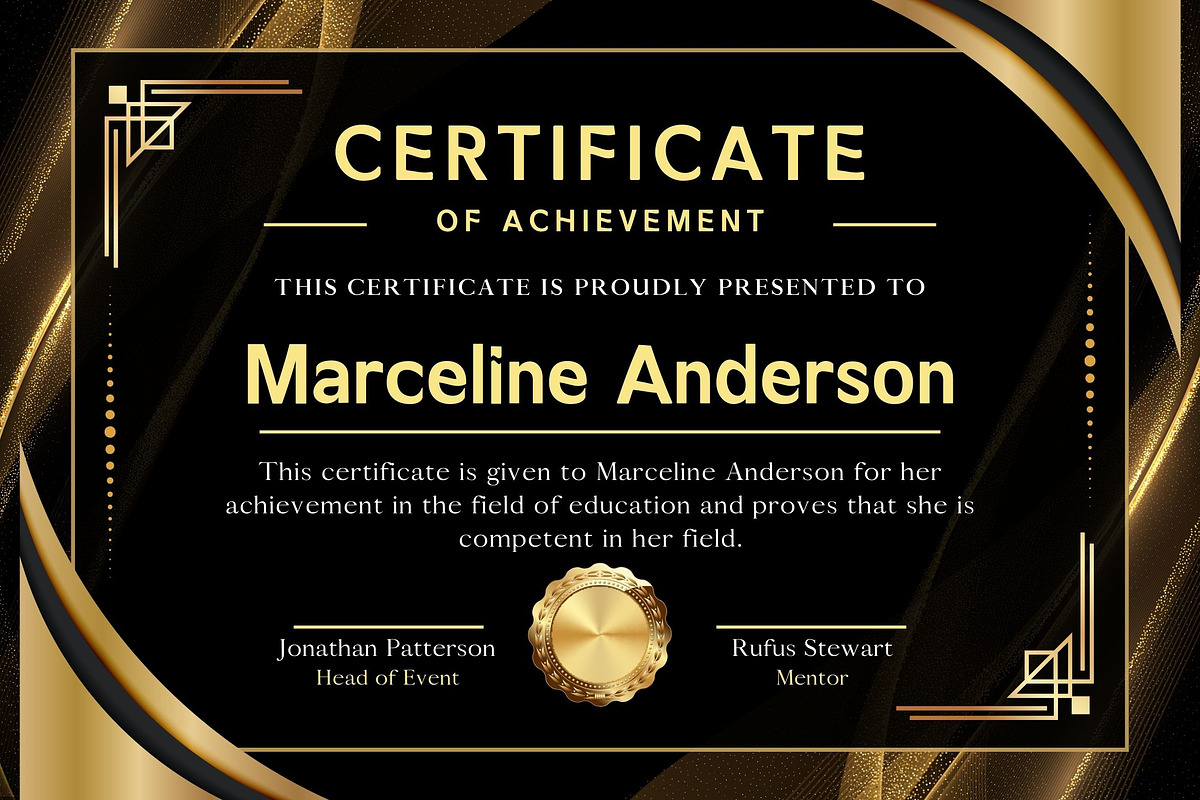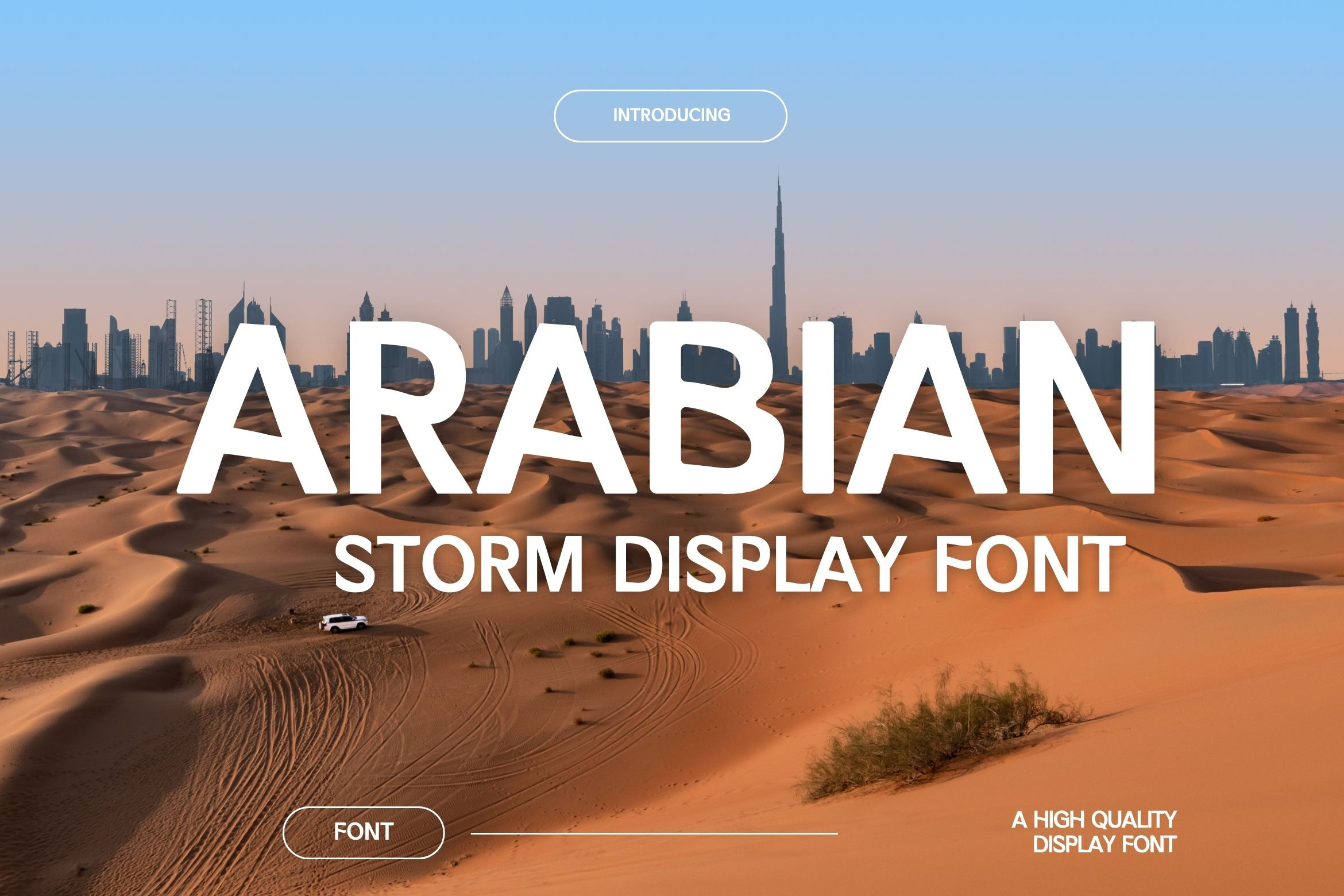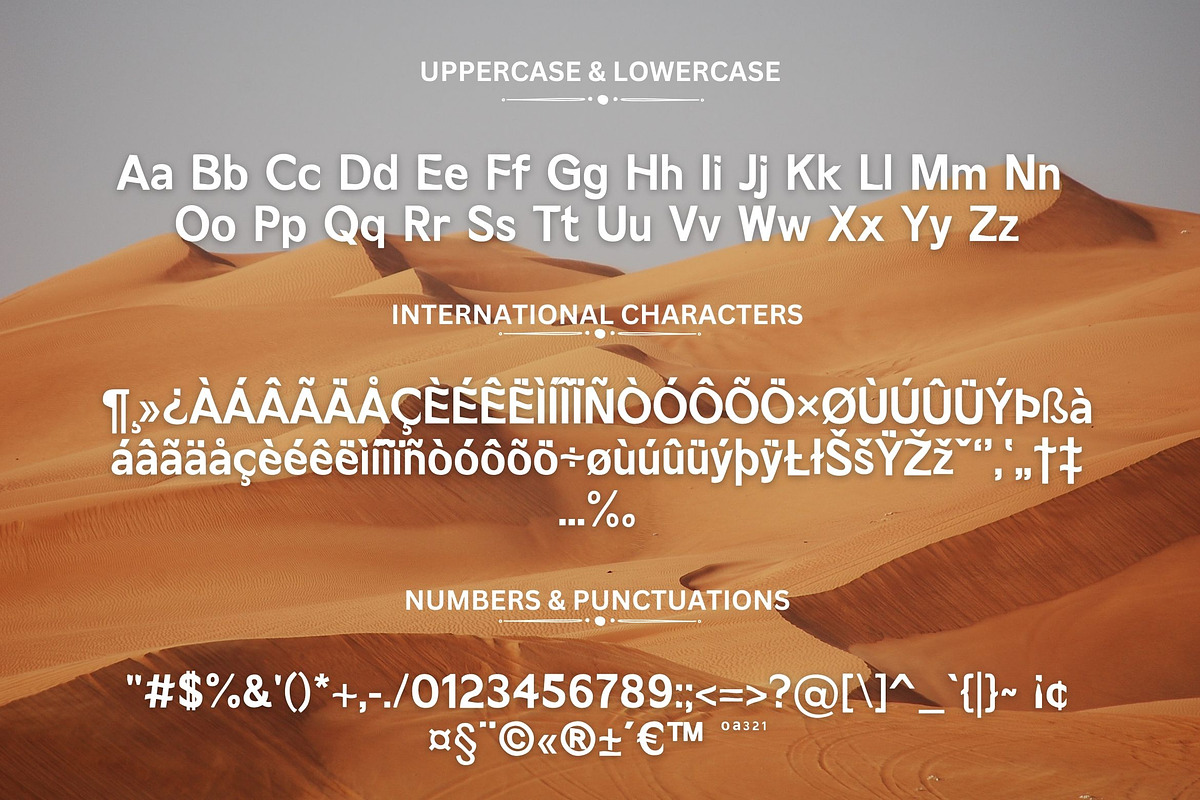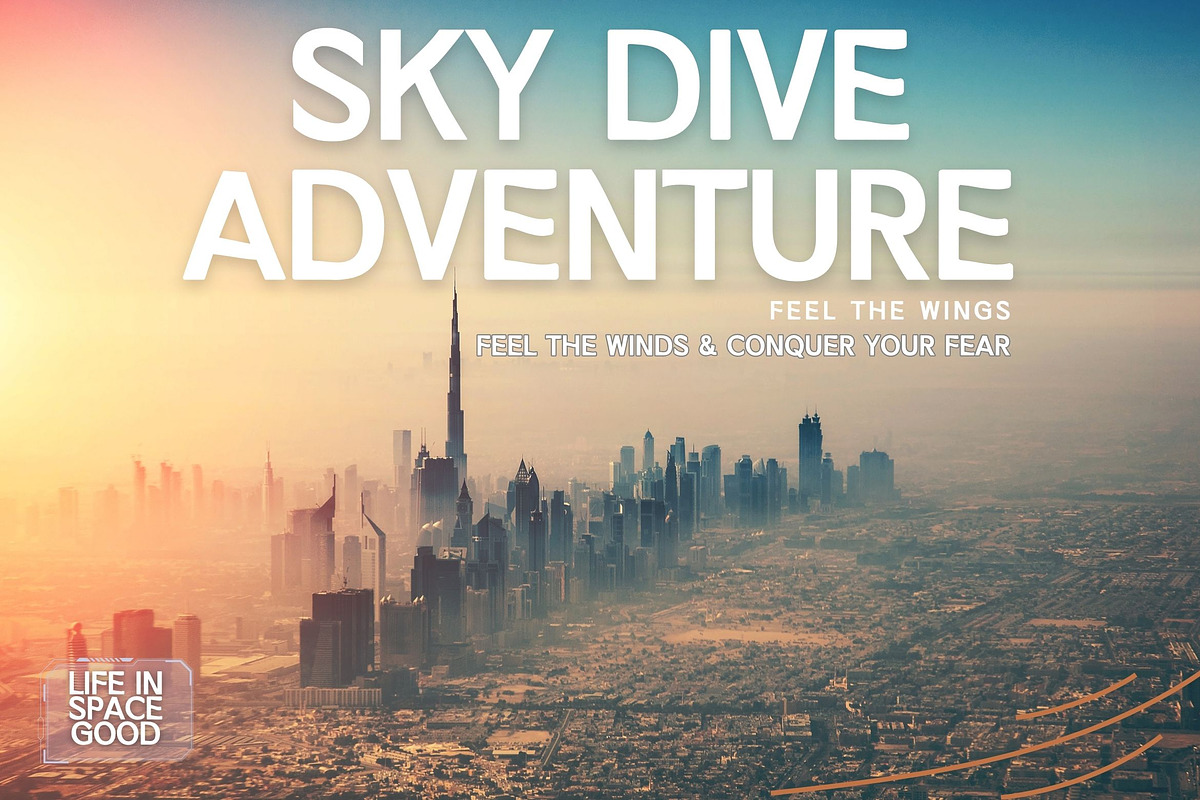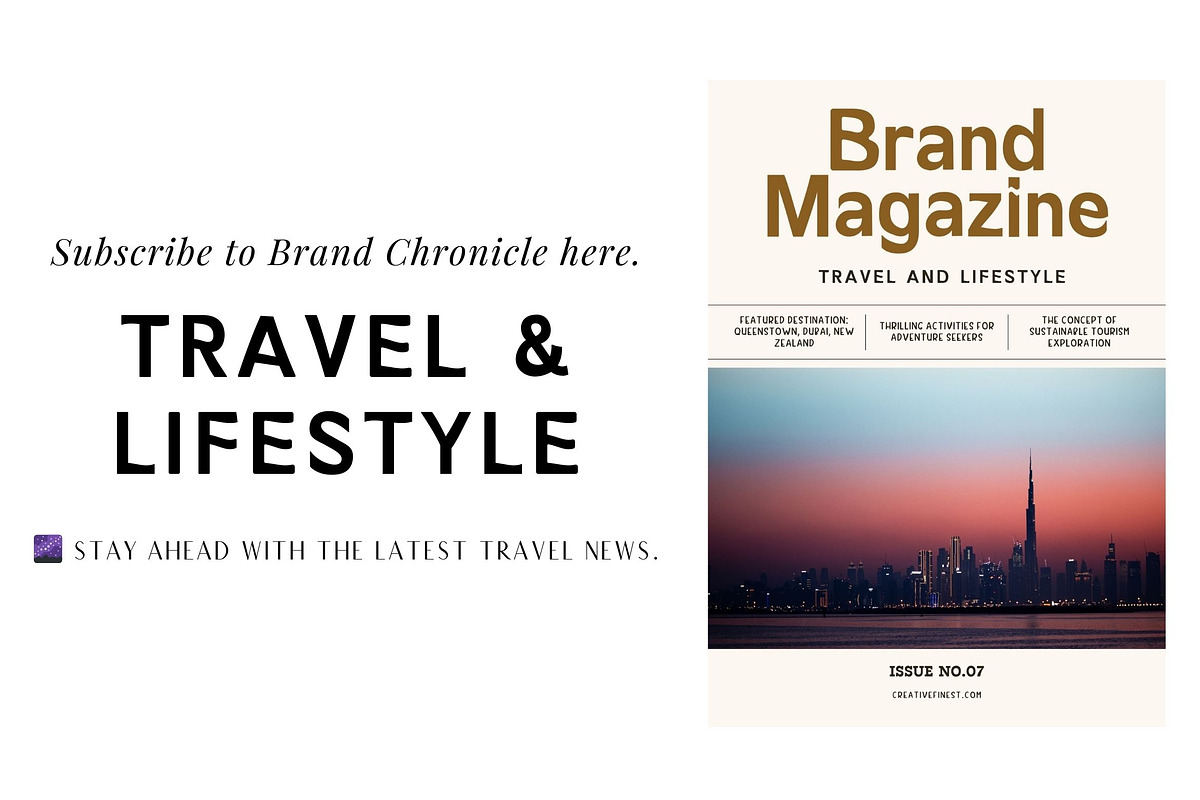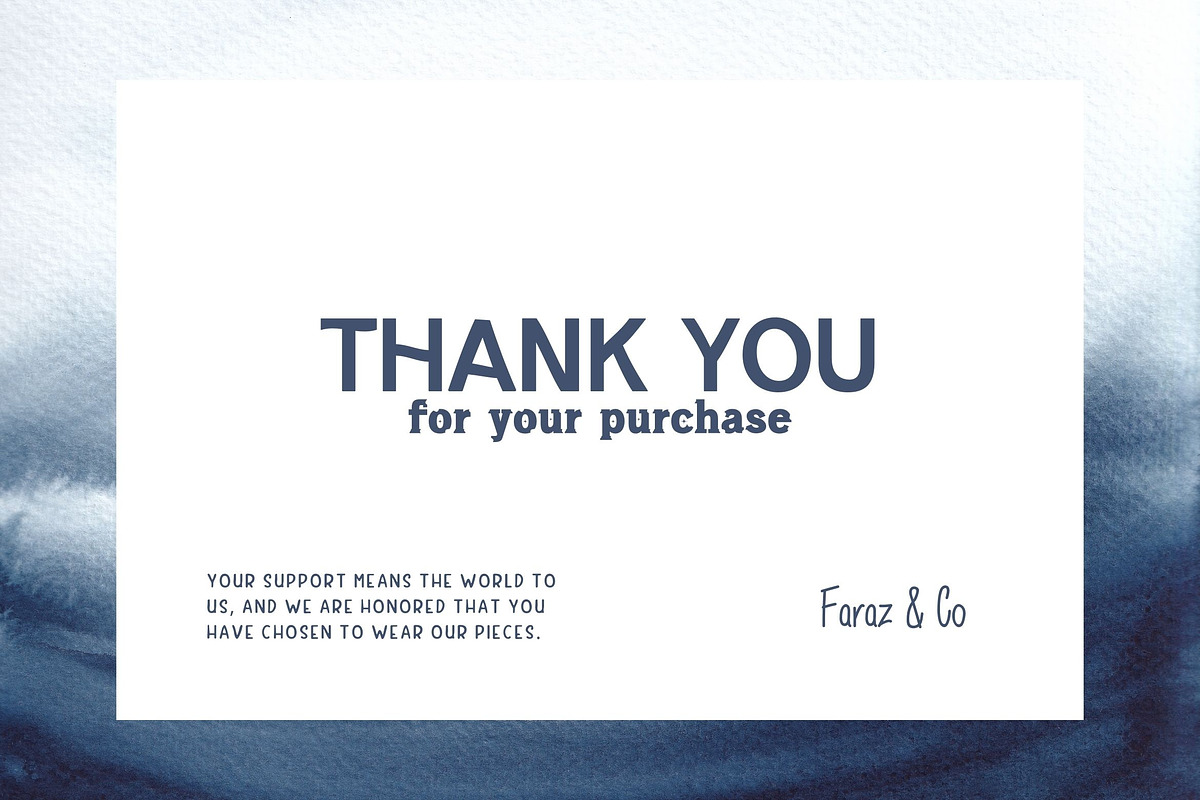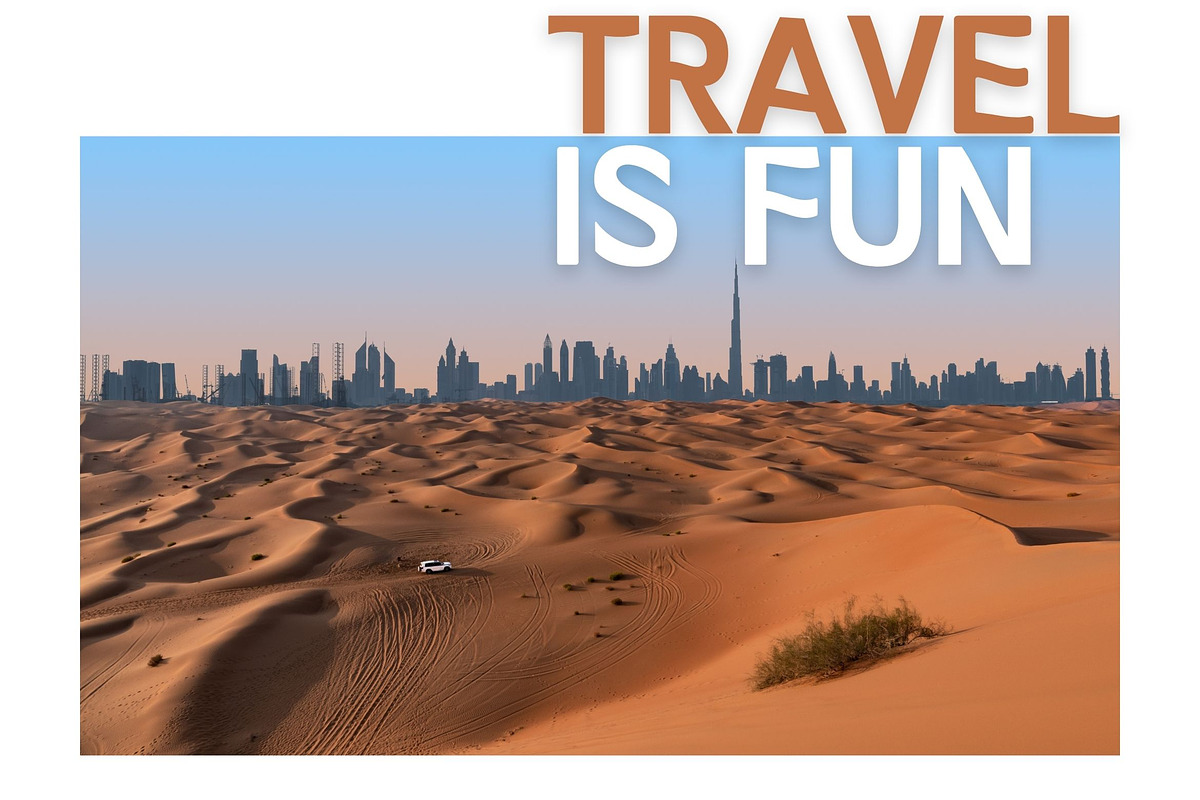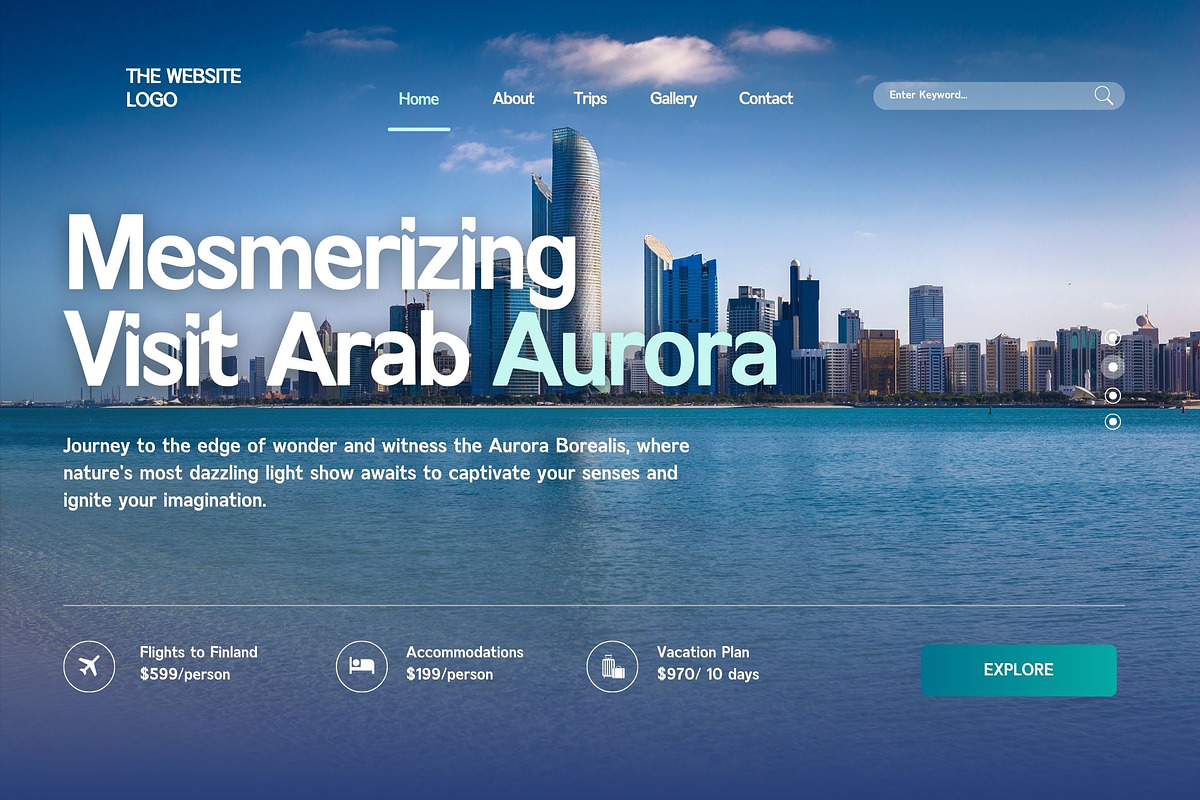
Arabian Storm Display Font
Arabian Storm Display Font is a strong and exciting typeface that shows the feeling of adventure and movement. Inspired by the fast winds of the desert, this font’s bold shapes and sharp edges give it a look that feels both powerful and modern. It’s great for making logos, posters, and branding that stand out. Whether you’re working on a creative project or need a bold font, Arabian Storm is made to bring energy and style to your designs.
This font works well for travel and leisure branding, where adventure and exploring new places are important. Its bold but elegant look shows the fun of visiting new places and seeing the world. From travel company logos to product packaging, Arabian Storm brings the excitement of journeys and the beauty of faraway places. It’s the perfect choice for any brand that wants to show the feeling of wanderlust and luxury.
Character Support in Arabian Storm Display Font
The Arabian Storm Display Font offers a versatile set of characters suitable for both English and international projects. It includes:
Uppercase & Lowercase Letters: Complete A-Z set in both uppercase and lowercase, ensuring you can use it for various typography needs like headings, subheadings, and body text.
International Characters: The font includes an extensive range of accented letters and special characters to support multiple languages. This includes letters like À, Á, Â, Ã, Ä, Å, Ç, È, É, Ê, Ë, Ì, Í, Î, Ï, Ñ, Ò, Ó, Ô, Ö, Ø, Ù, Ú, Û, Ü, and many others, which make it a great choice for global use.
Numbers & Punctuation: A full set of numerals (0-9) and punctuation marks, including symbols like #, $, &, %, @, and more. This ensures the font is suitable for professional design projects that require numbers and symbols, such as financial documents, branding, or product descriptions.
With this wide range of characters, Arabian Storm Display Font is designed to handle multiple language needs and versatile design applications, from branding to digital projects across the globe.